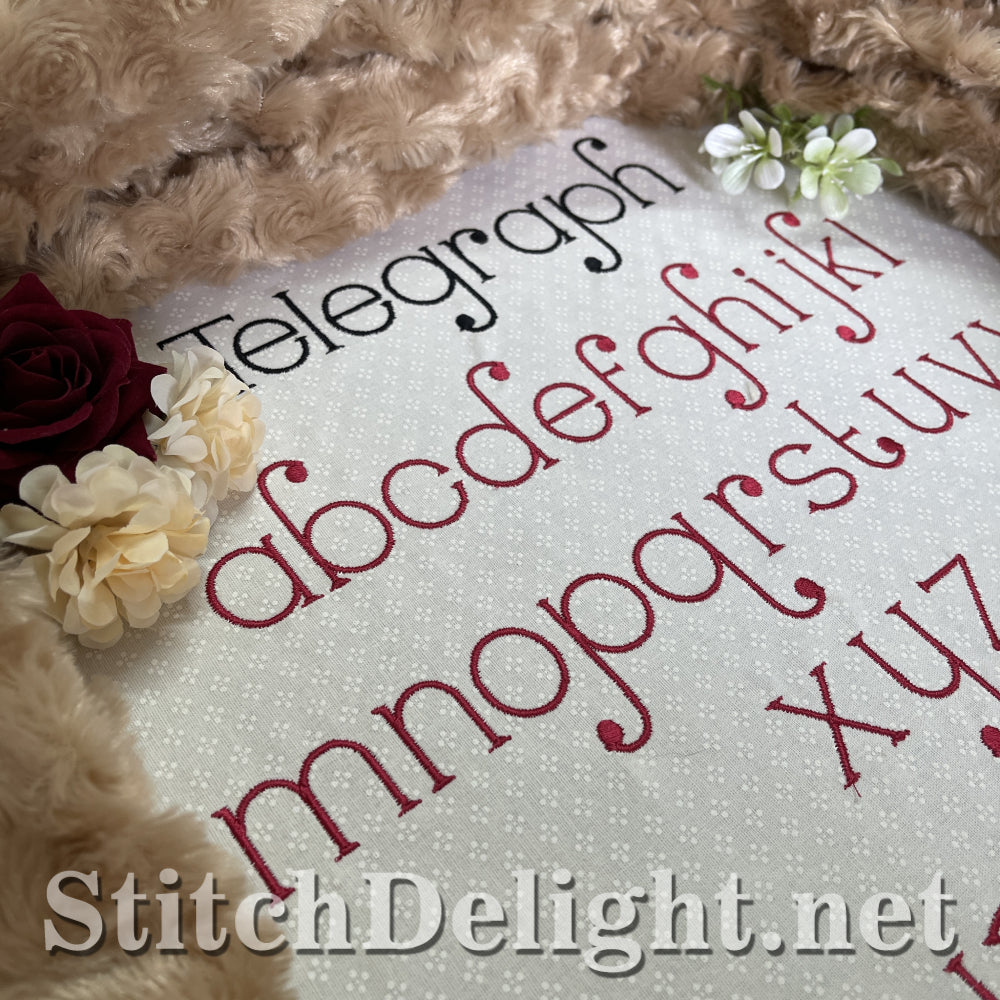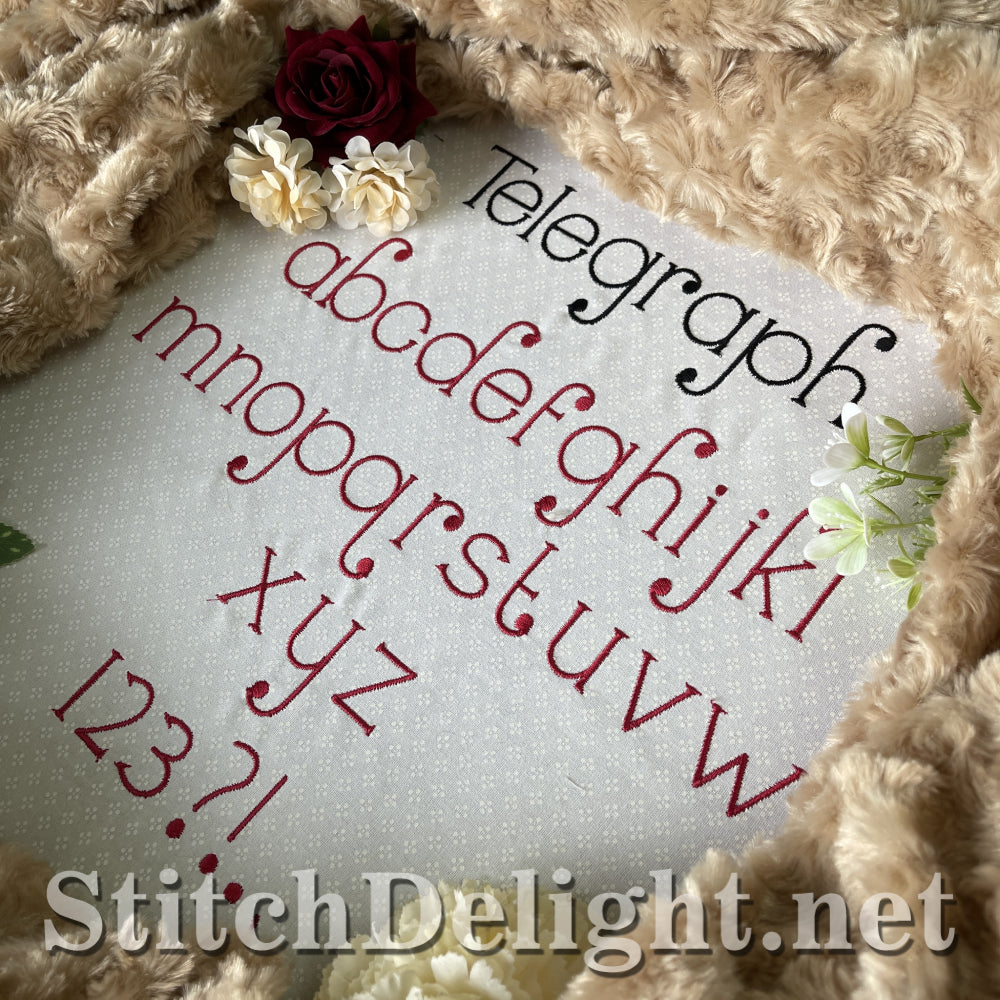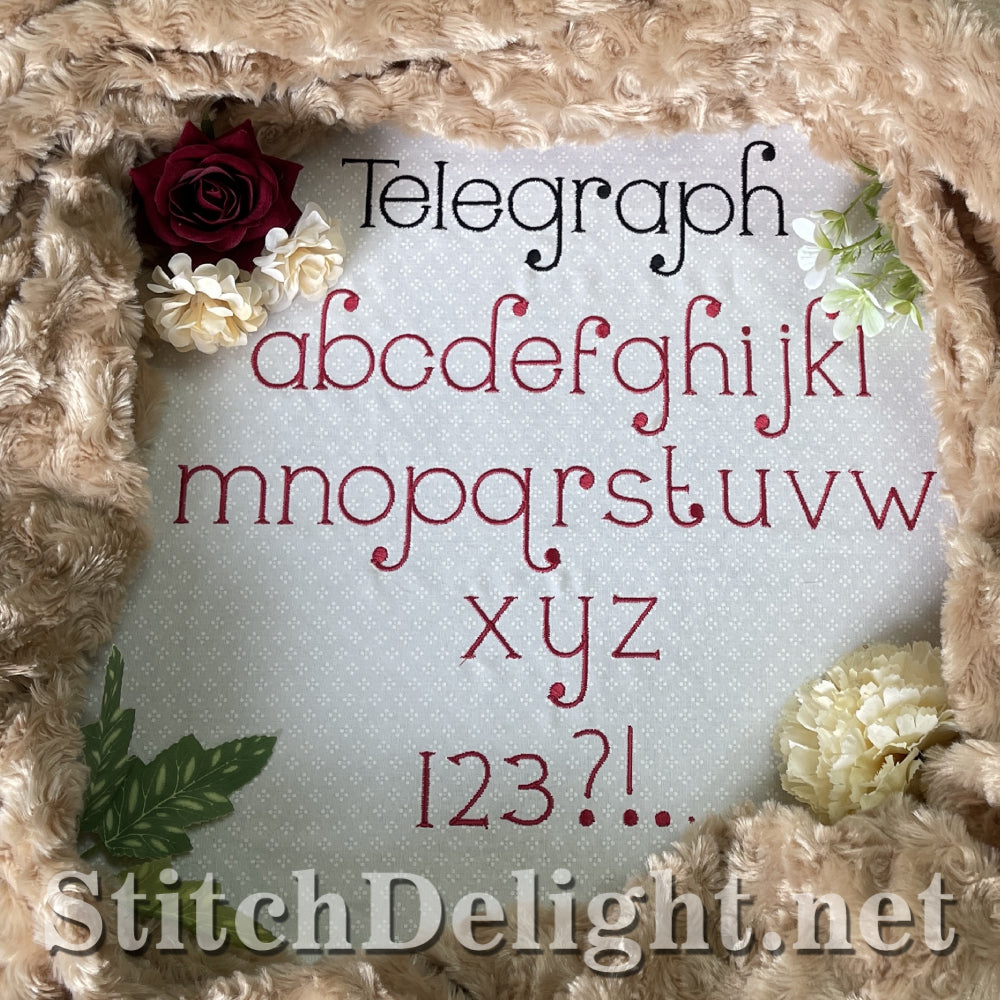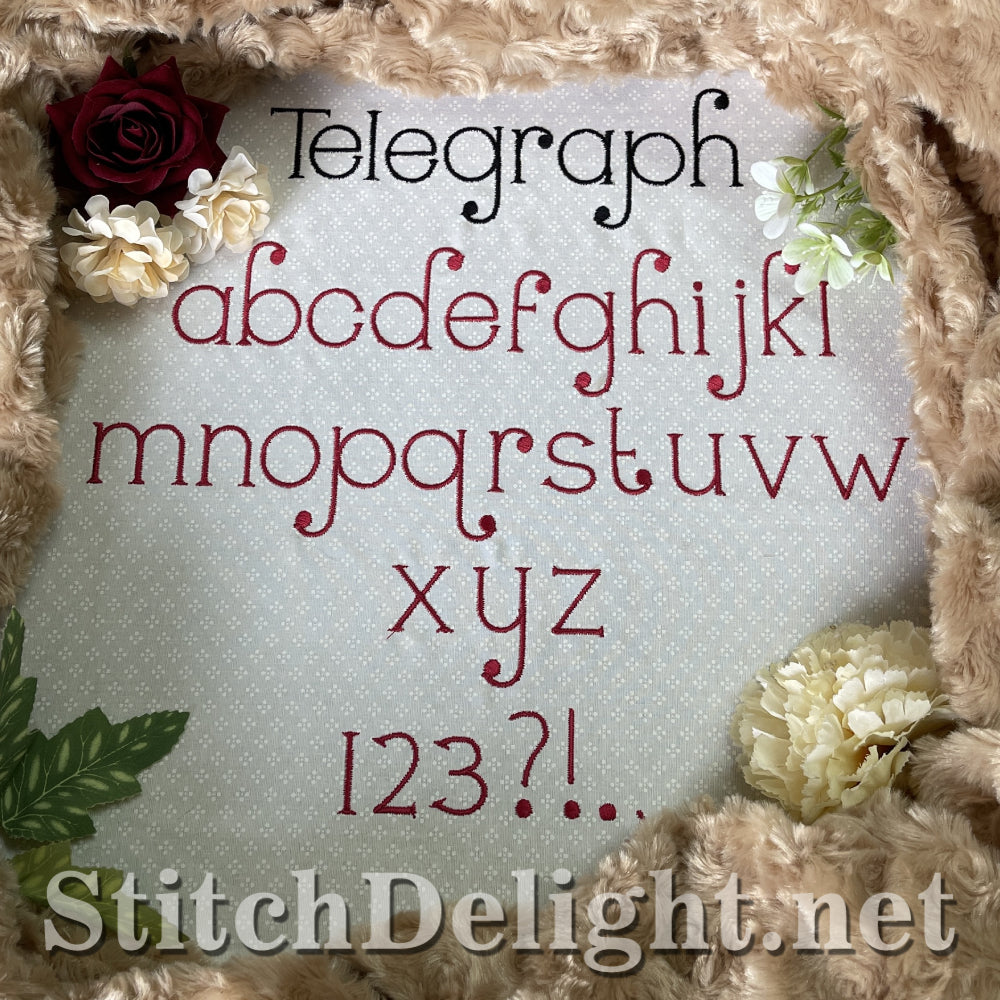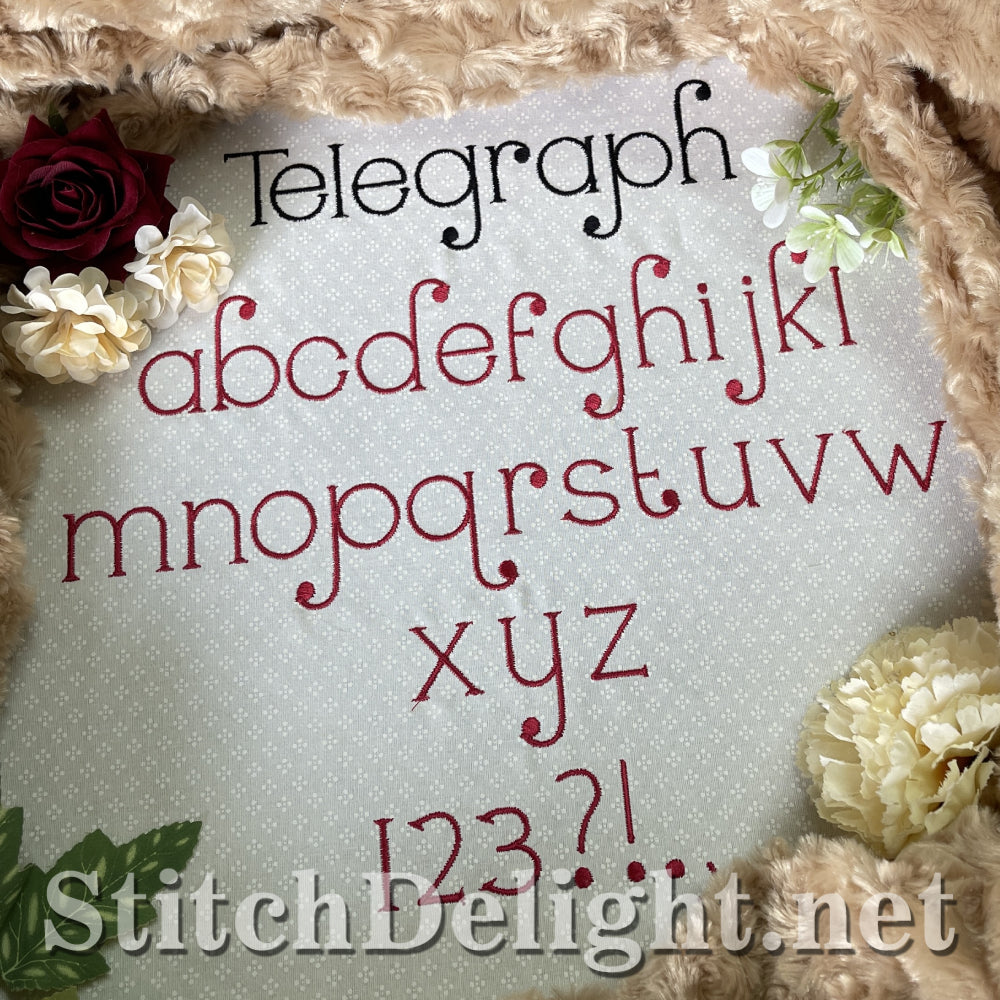
This elegant font combines readability with ease of stitching, making it perfect for headlines or names in your projects. Standing at just 2 inches tall, it allows you to effortlessly incorporate its stunning design into your work. Bx Format included,
This is a Complete Font with uppercase, lowercase, numbers and basic punctuation.